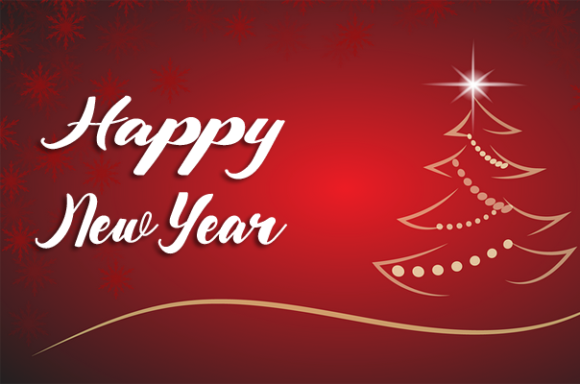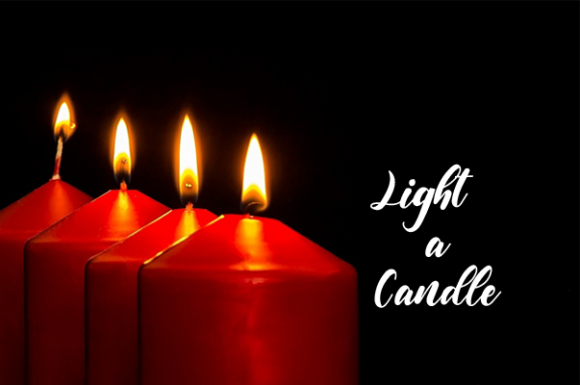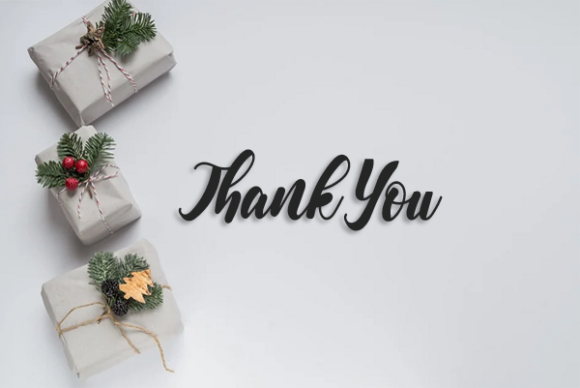
Introducing Christmas Font: Elevate Your Designs with Elegance and Sophistication
Are you looking for a font that exudes class, elegance, and modernity? Look no further than Christmas Font, a beautiful and refined script font that is perfect for a wide range of design applications. Whether you’re a designer, crafter, or DIY enthusiast, this versatile font is sure to become a staple in your creative toolkit.
What Makes Christmas Font So Special?
Christmas Font boasts a classy, elegant, and modern look that is sure to elevate your designs to the next level. Its refined script style is perfect for creating sophisticated logos, branding materials, invitations, stationery, wedding designs, social media posts, and more. The font’s versatility and flexibility make it an excellent choice for designers and crafters who want to add a touch of luxury and refinement to their work.
Endless Design Possibilities with Christmas Font
With Christmas Font, the design possibilities are endless. Here are just a few ideas to get you started:
- Logos and Branding: Create a lasting impression with a custom logo that showcases your brand’s personality and style. Use Christmas Font to craft a unique and memorable brand identity that sets you apart from the competition.
- Invitations and Stationery: Add a touch of elegance to your invitations, greeting cards, and stationery with Christmas Font. Perfect for weddings, baby showers, and other special occasions.
- Wedding Designs: Make your wedding designs truly unforgettable with Christmas Font. Use it to create beautiful wedding invitations, programs, and decorations that reflect your special day’s style and sophistication.
- Social Media Posts: Elevate your social media presence with Christmas Font. Use it to create eye-catching graphics, quotes, and posts that showcase your brand’s personality and style.
- Crafting and DIY Projects: Add a professional touch to your crafting and DIY projects with Christmas Font. Perfect for creating custom signs, banners, and decorations for parties, events, and special occasions.
Why Choose Christmas Font?
So, why choose Christmas Font over other fonts? Here are just a few reasons why designers and crafters love this versatile font:
- Unique and Memorable: Christmas Font’s refined script style is sure to make your designs stand out from the crowd. Its unique and memorable look will leave a lasting impression on your audience.
- Easy to Read and Use: Despite its elegant and sophisticated look, Christmas Font is easy to read and use. Its clear and concise style makes it perfect for a wide range of design applications.
- Highly Versatile: Christmas Font is highly versatile and can be used for a wide range of design applications, from logos and branding to invitations and social media posts.
Tips and Tricks for Using Christmas Font
Here are a few tips and tricks to help you get the most out of Christmas Font:
- Experiment with Different Sizes and Styles: Don’t be afraid to experiment with different sizes and styles to find the perfect look for your design.
- Pair with Other Fonts: Christmas Font pairs well with other fonts, so don’t be afraid to try pairing it with different fonts to create a unique and memorable look.
- Use for Headings and Titles: Christmas Font is perfect for headings and titles, so use it to add a touch of elegance and sophistication to your designs.
In conclusion, Christmas Font is a beautiful and refined script font that is perfect for designers, crafters, and DIY enthusiasts who want to add a touch of elegance and sophistication to their work. Its versatility, flexibility, and unique style make it an excellent choice for a wide range of design applications. Whether you’re creating logos, branding materials, invitations, or social media posts, Christmas Font is sure to elevate your designs to the next level.